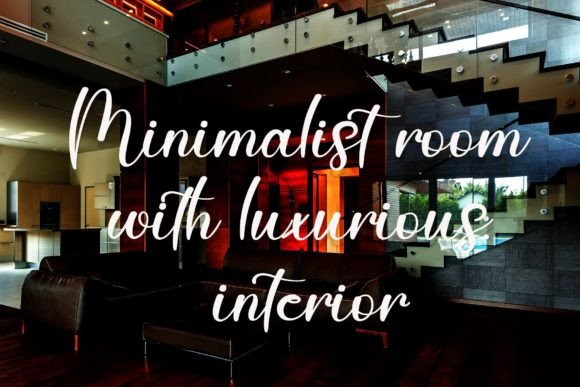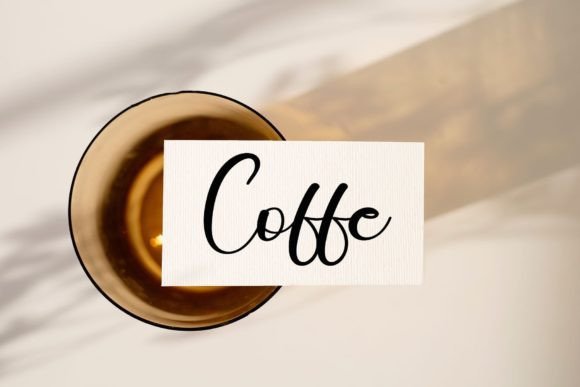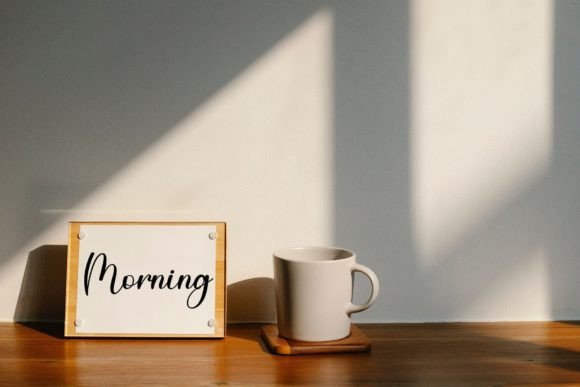
About Anyway Font
“Anyway Font: Sweet Elegance with a Touch of Luxury
Introducing Anyway, a sweet and beautiful handwritten font crafted to bring a touch of luxury and charm to your design projects. With characters that gracefully dance along the baseline, Anyway adds a delightful spark and elegance to any creative endeavor. This font is perfect for those who desire to infuse a luxurious touch into their designs, making each project stand out with its unique and captivating aesthetic.
Beyond being just a font, Anyway is a design statement that captures attention with its sweet and elegant strokes. The characters in Anyway create a visual dance that elevates the overall appeal of your projects.
The sweet elegance of Anyway shines through in its ability to transform any design into a luxurious masterpiece. Whether you’re working on invitations, posters, or branding materials, Anyway adapts effortlessly to add a touch of sophistication.
For designs that crave a luxurious spark, Anyway becomes the perfect choice. Its handwritten charm brings a sense of uniqueness, making it ideal for projects that demand a blend of sweetness and elegance.
In posters and advertisements, Anyway serves as a distinctive element, creating a visual appeal that captivates the audience. The font’s dancing characters contribute to a lively and dynamic design.
Anyway’s versatility extends to various design projects, making it suitable for branding, packaging, and more. The font’s unique character enhances the overall aesthetics, creating a visually pleasing and memorable experience.
In conclusion, Anyway is more than just a font; it’s a design companion that brings sweet elegance to your creative toolkit. Let Anyway be the brushstroke that adds a luxurious spark to the beauty of your projects. Embrace the charm and sophistication of Anyway, and watch as it transforms your ideas into delightful and memorable experiences.”